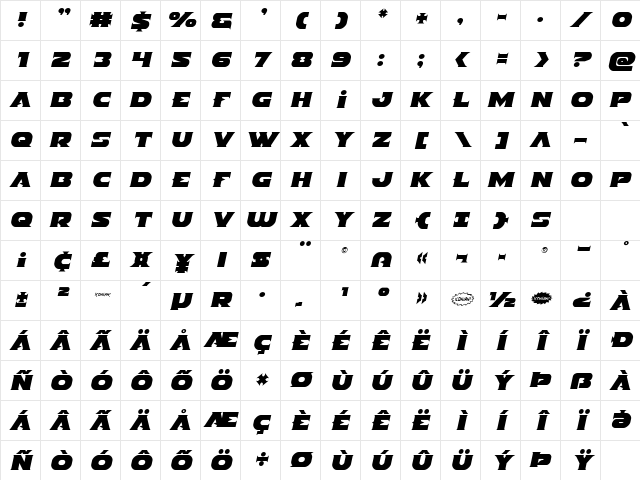
Indigo Demon is a composed and adaptable typeface that performs quietly and consistently across a wide range of design contexts. The slanted form adds forward momentum and visual energy.
Pro Tip: Use Indigo Demon for emphasis, pull quotes, and subheadings where its slanted energy can add rhythm to the layout.